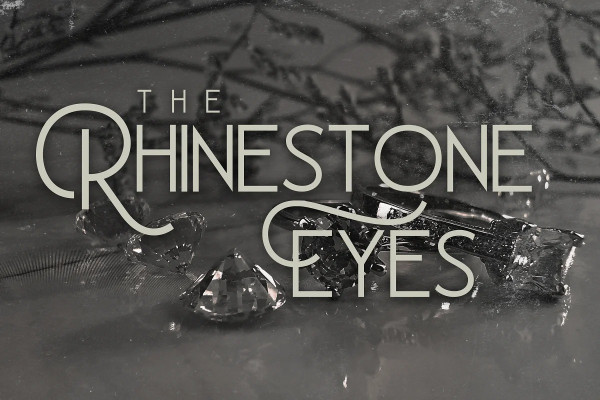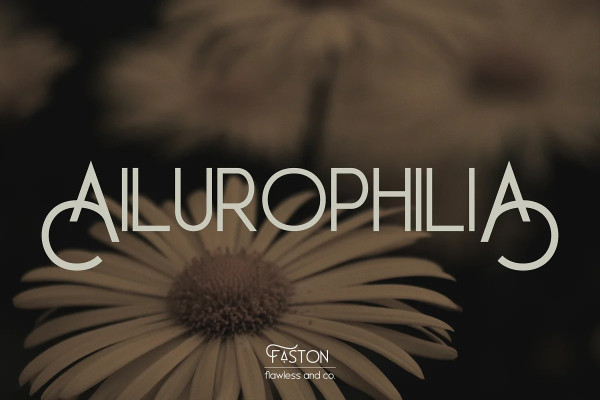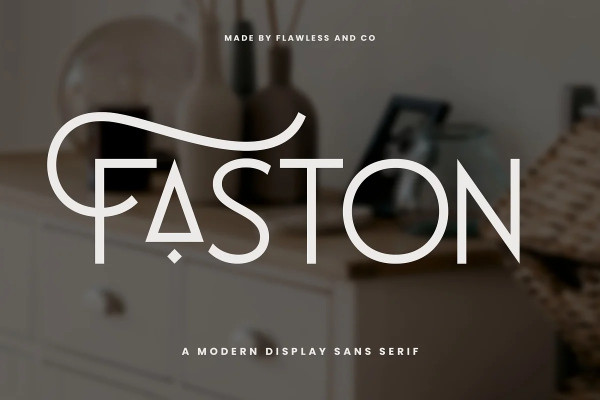
Faston Font
Faston Font – A Modern Display Sans Serif Font. Unleash the power of contemporary design with “Faston,” a dynamic and versatile display sans serif font that elevates your projects to the cutting edge. With its sleek lines and bold presence, Faston is designed to command attention and leave a lasting impression.